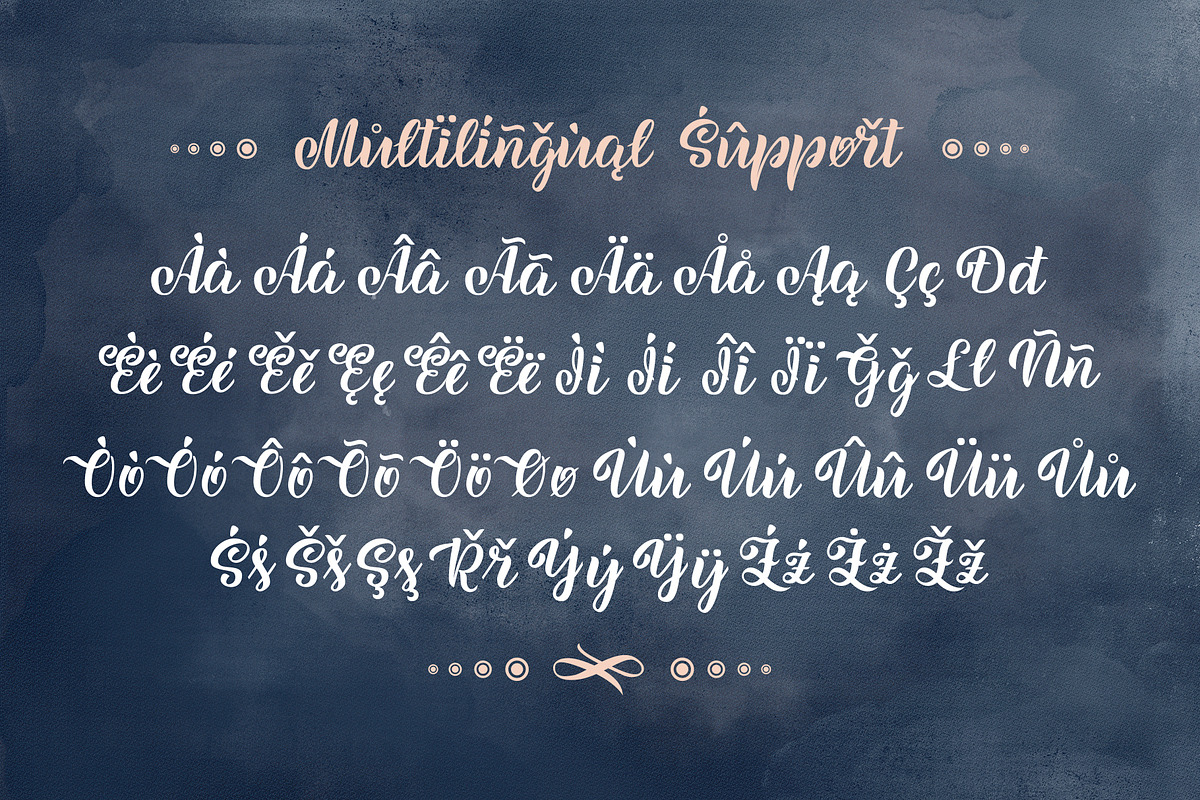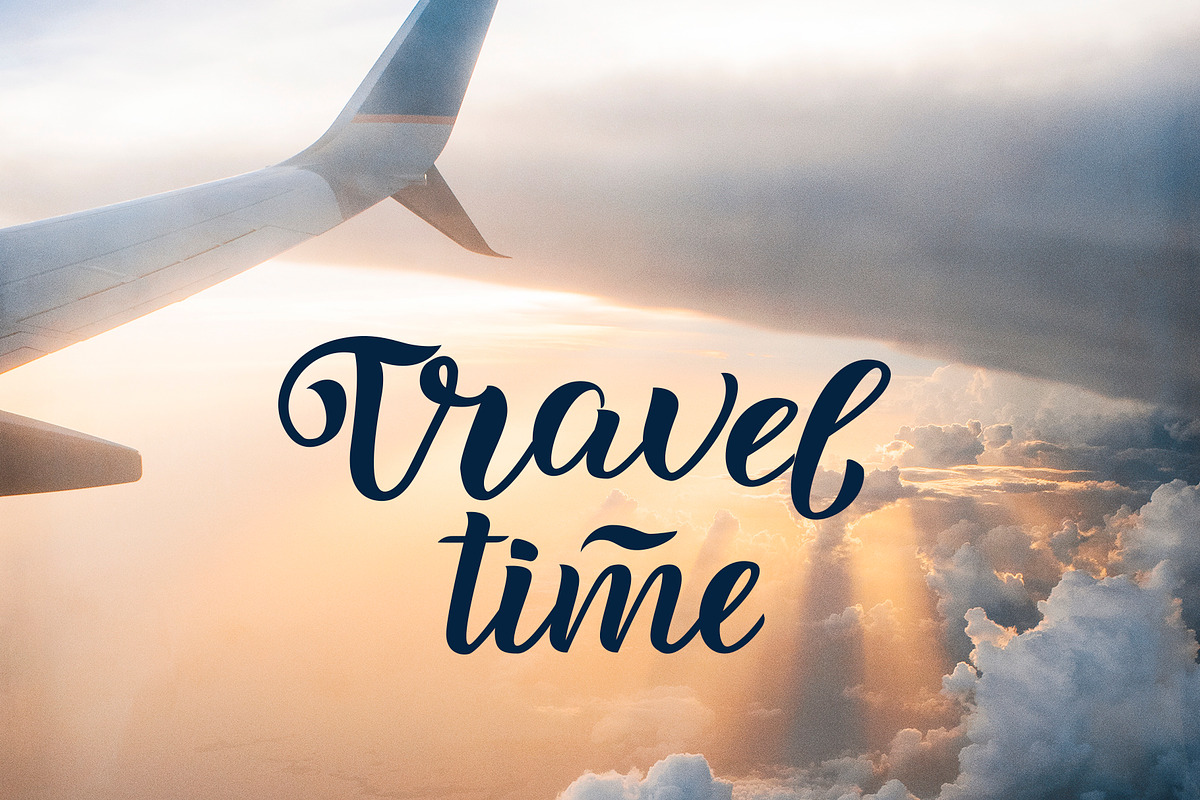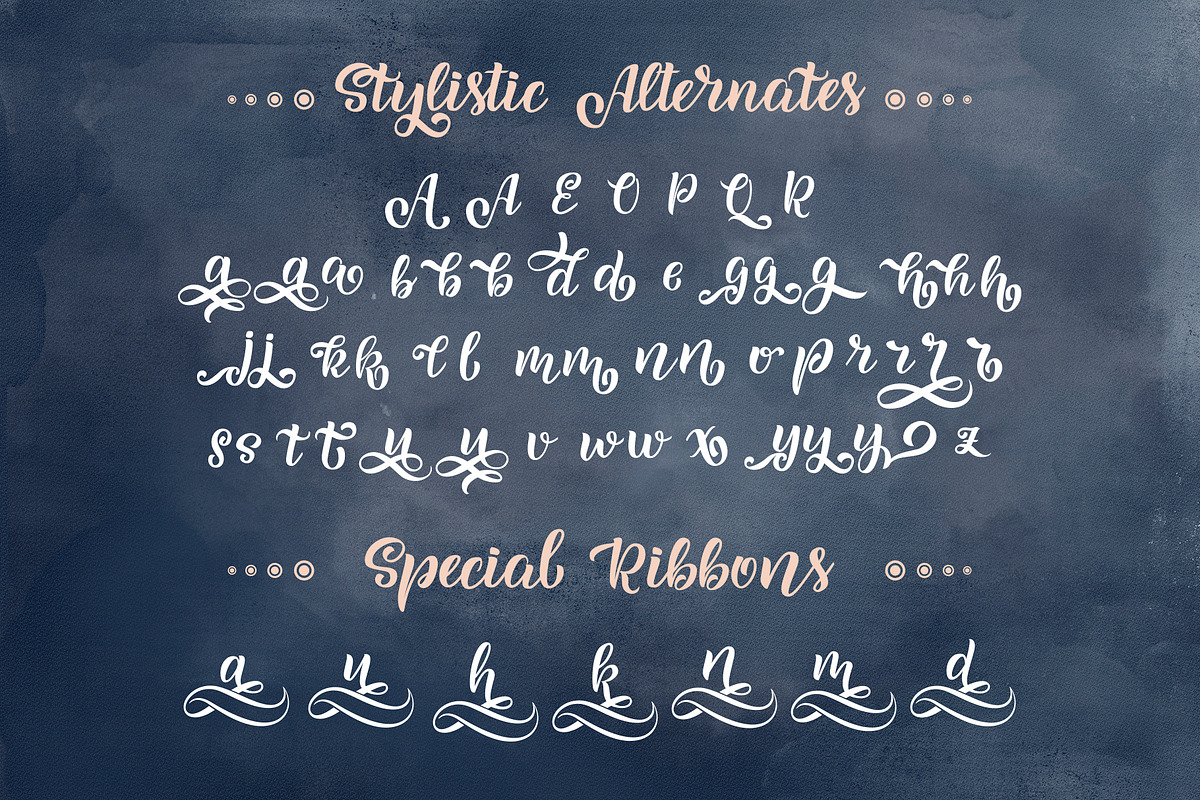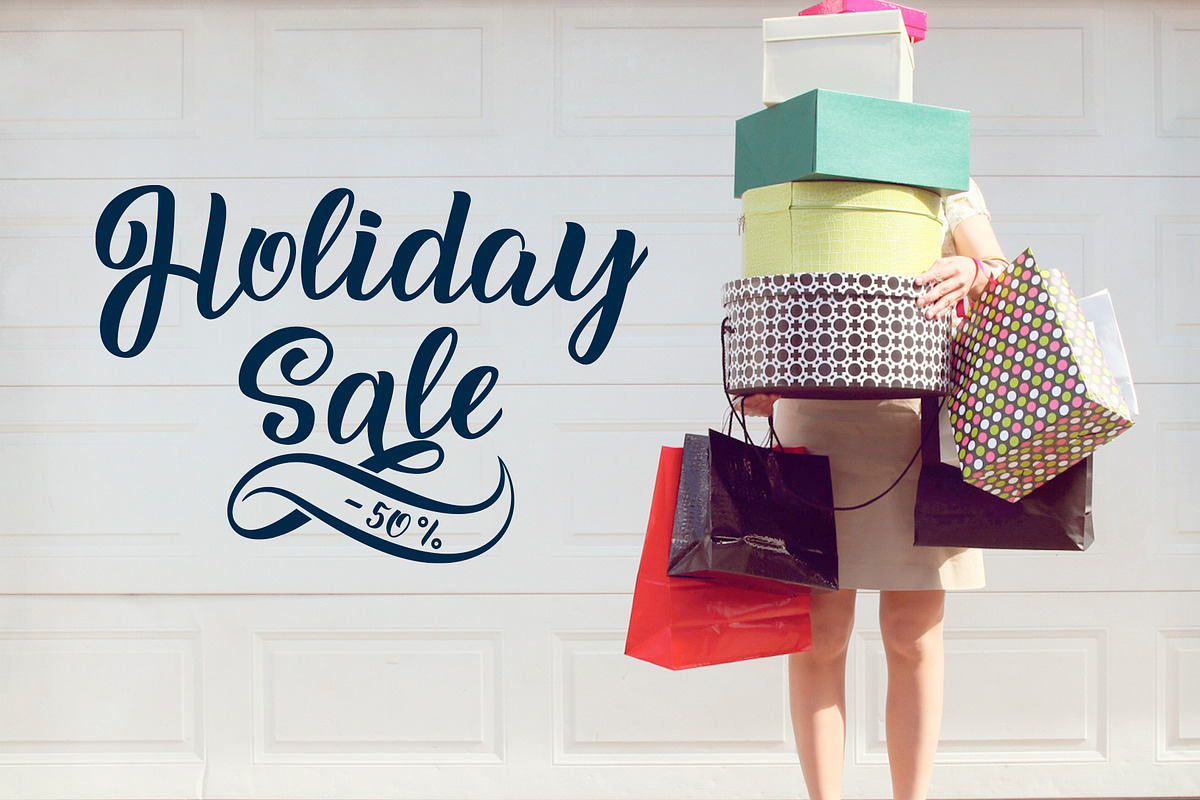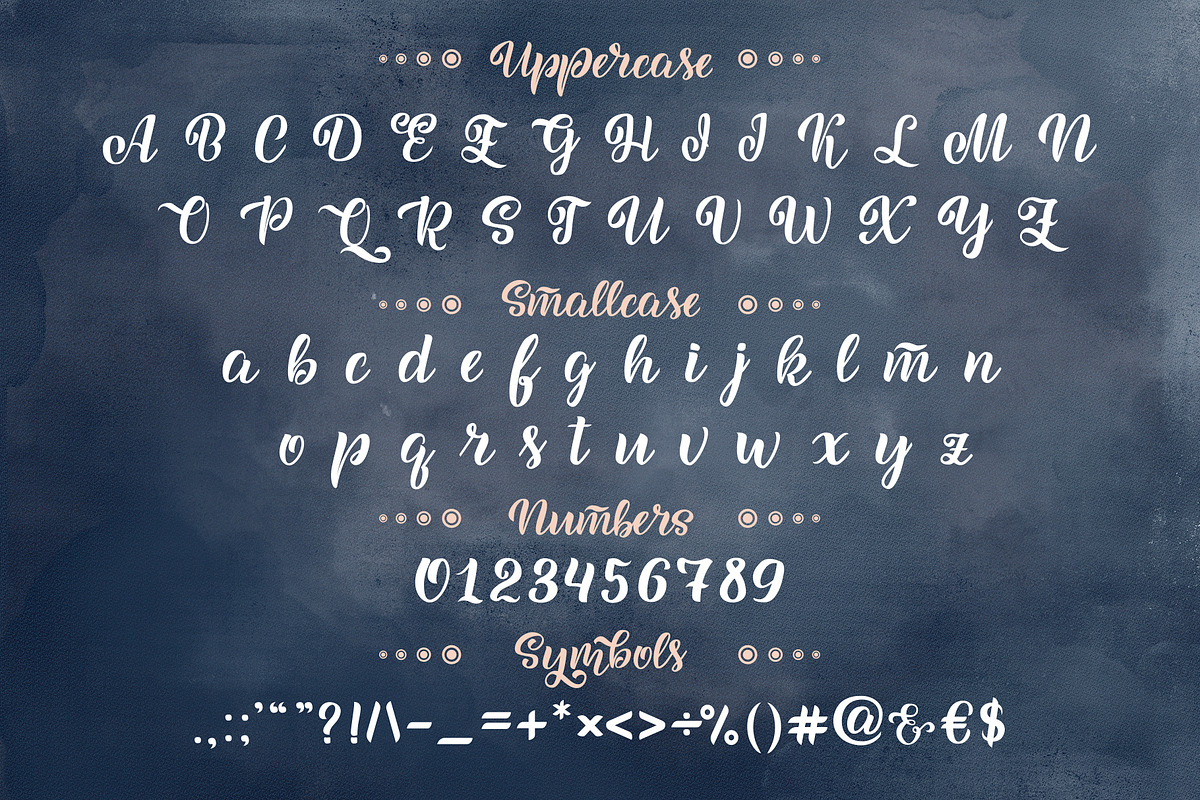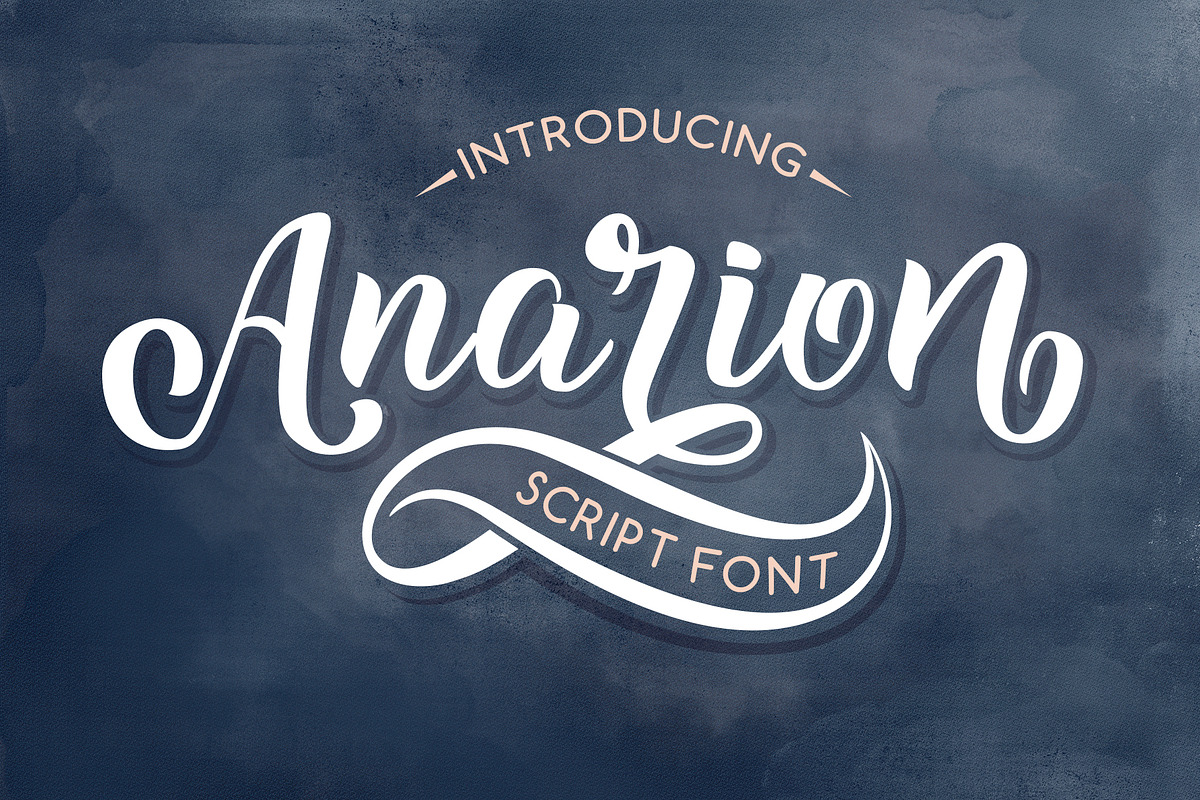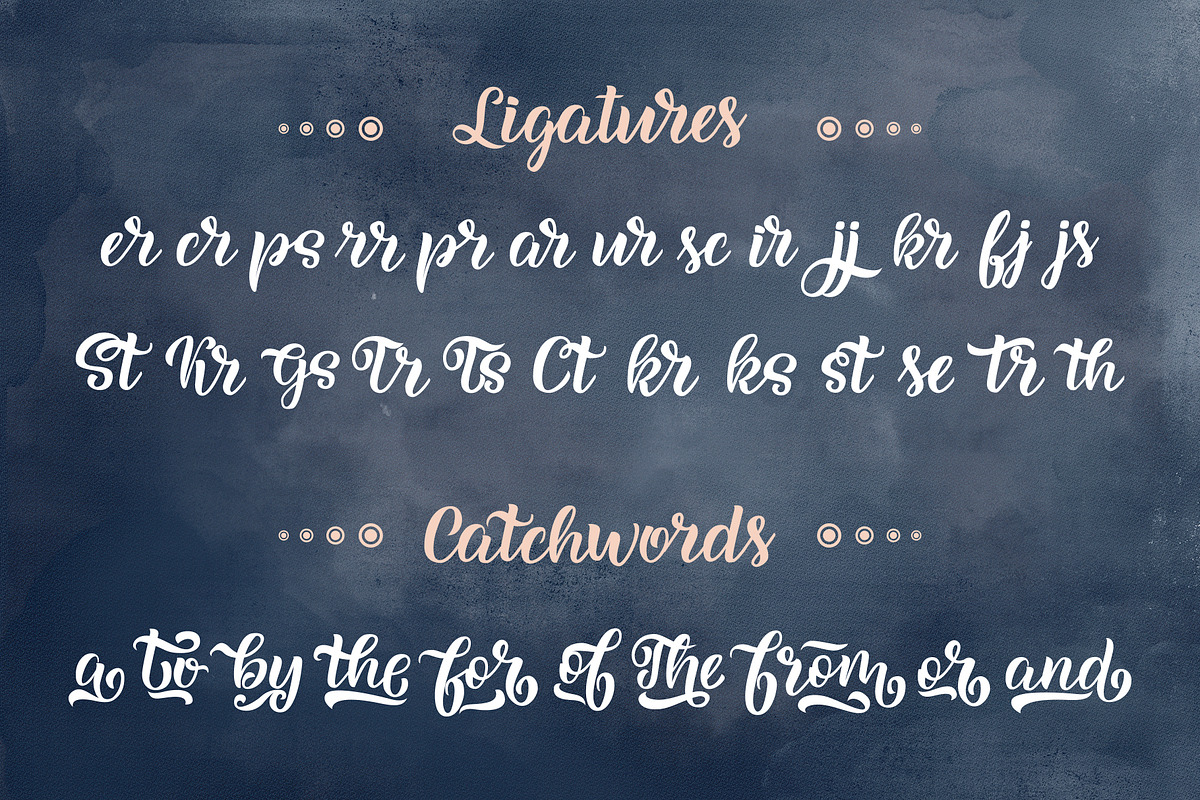
Anarion Script Font
Anarion font is based from hand lettering with a brushpen tool, based from a brushpen lettering in my favorite style.
Anarion Script Font is perfect for logotype creation, lettering compositions, wedding invitations, fashion projects, book design cover, magazines typography, cards, packagings, posters, branding and more.
More than 270 glyphs inside the font, you can also create many of other typography designs. Stylistic Alternates, Special Ribbons and Ligatures is a list of features from OpenType which you can use to pairing the letters each other powerfully. You will need a some OpenType Features software such as Adobe Illustrator, Photoshop CC, InDesign or Coreldraw X6 above, to access all the alternates from the font.
Anarion have supporting for many languages as: Czech, Danish and Norwegian, Deutsch, English, Espanol, French, Italiano, Magyar, Nederlands, Polish, Portuguese, Finnish, Swedish, Turkish and other based on extended latin.
- Stylistic Alternates, Special Ribbons and Ligatures is a list of features from OpenType which you can use to pairing the letters each other
Why Anarion Script Font is worth a look
Anarion Script Font by Artlana fits naturally into Branding, posters, packaging, typography.